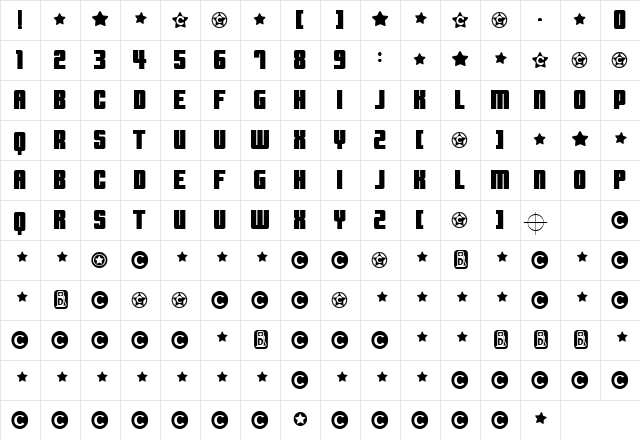
Clearwerkkraftremix Regular Font Preview
Clearwerkkraftremix Regular
Clearwerkkraftremix Regular Font Details
Design Context for Clearwerkkraftremix Typeface
Clearwerkkraftremix is a composed and adaptable typeface that performs quietly and consistently across a wide range of design contexts.